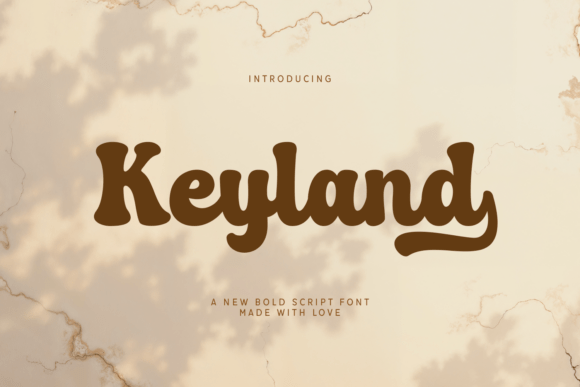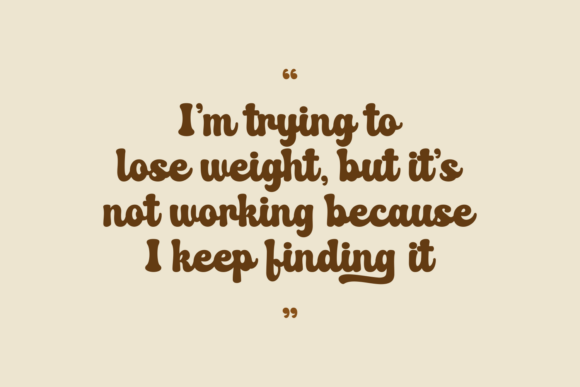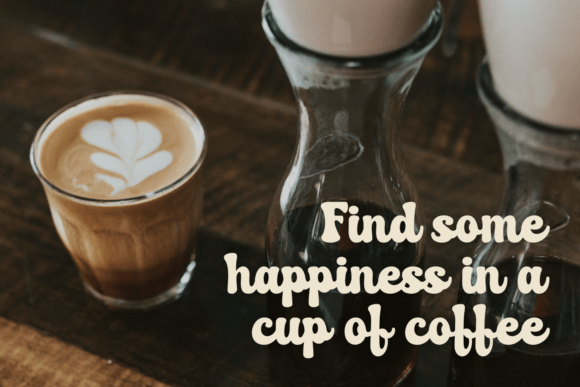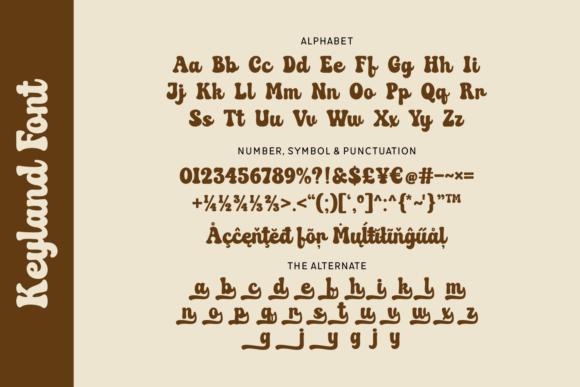
Keyland Font
About the Keyland Font
Elevate your designs with Keyland Font, a font that combines sophistication with readability. Keyland is a bold script font with a warm, retro vibe. With thick strokes and smooth curves, it’s ideal for logo designs, packaging, posters, and other projects that need a fun and confident personality.
Keyland’s bold, playful nature makes it perfect for headlines, short taglines, and branding elements where a retro-inspired, confident feel is desired. It works exceptionally well on packaging for products aimed at a younger demographic or those emphasizing fun and nostalgia. Avoid using Keyland for extensive body text or UI elements; its thick strokes can hinder readability in smaller sizes or within complex layouts.
Pairing Keyland with a clean sans-serif like Montserrat or a geometric sans-serif such as Futura provides a strong contrast, balancing its playful energy with modern sophistication. For a warmer feel, consider pairing it with a serif like Playfair Display, which complements its retro vibe without overpowering it. A simple, neutral sans-serif like Open Sans can also provide a solid foundation for supporting text.
Keyland’s overall personality is best described as bold and friendly, with a touch of retro charm. This makes it suitable for brands associated with vintage aesthetics, entertainment, food and beverage, and lifestyle products that want to convey a sense of approachable confidence.
Keyland Font Usage Examples
Keyland Font Example